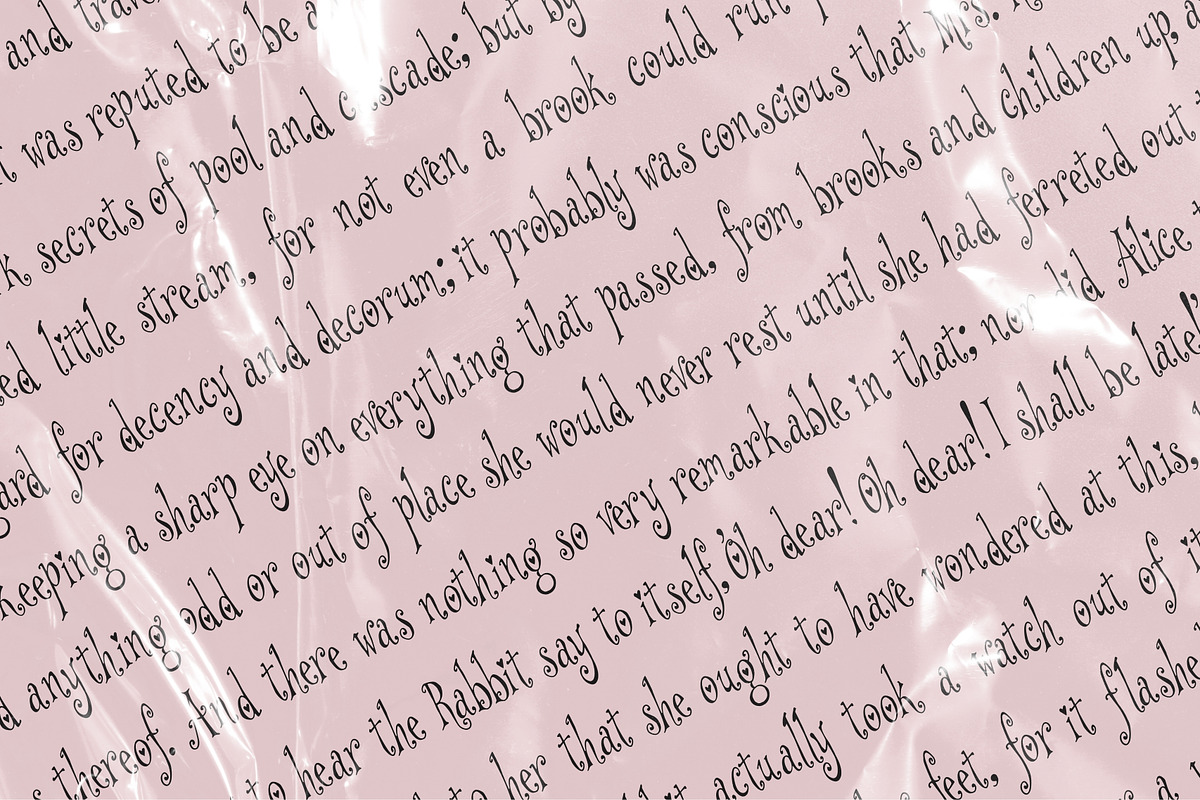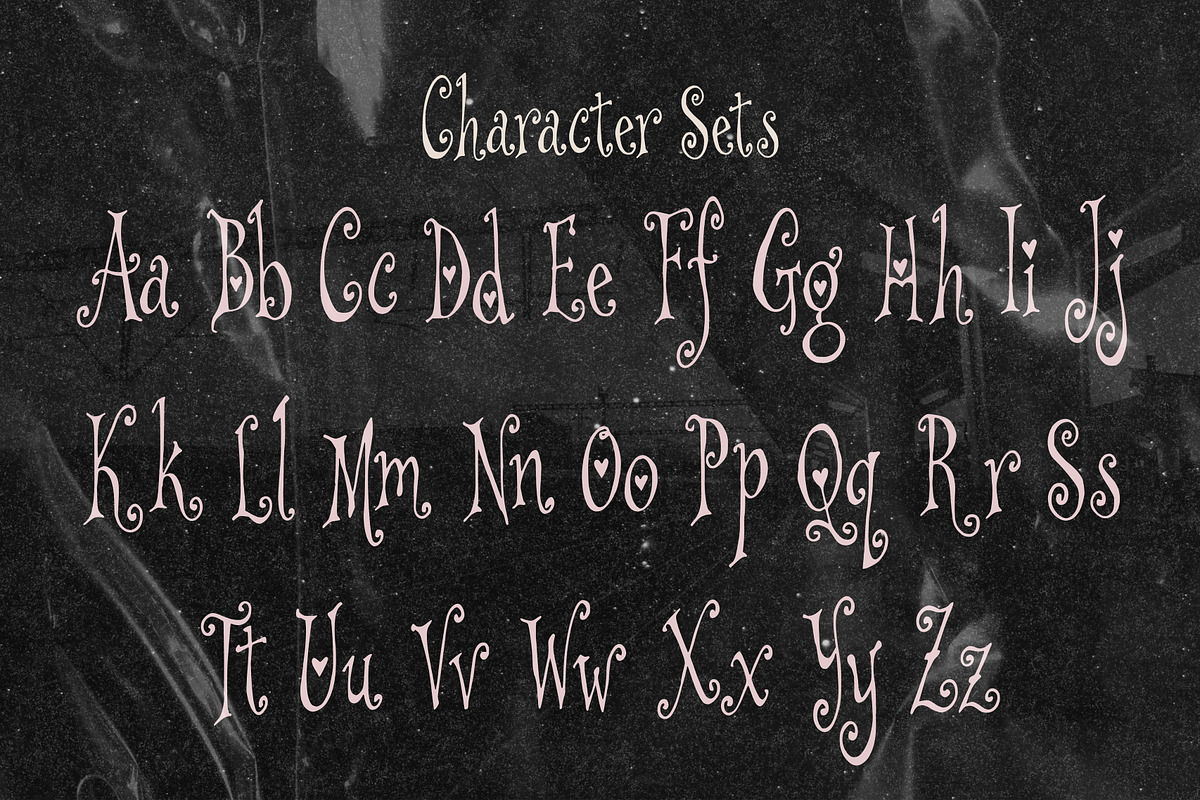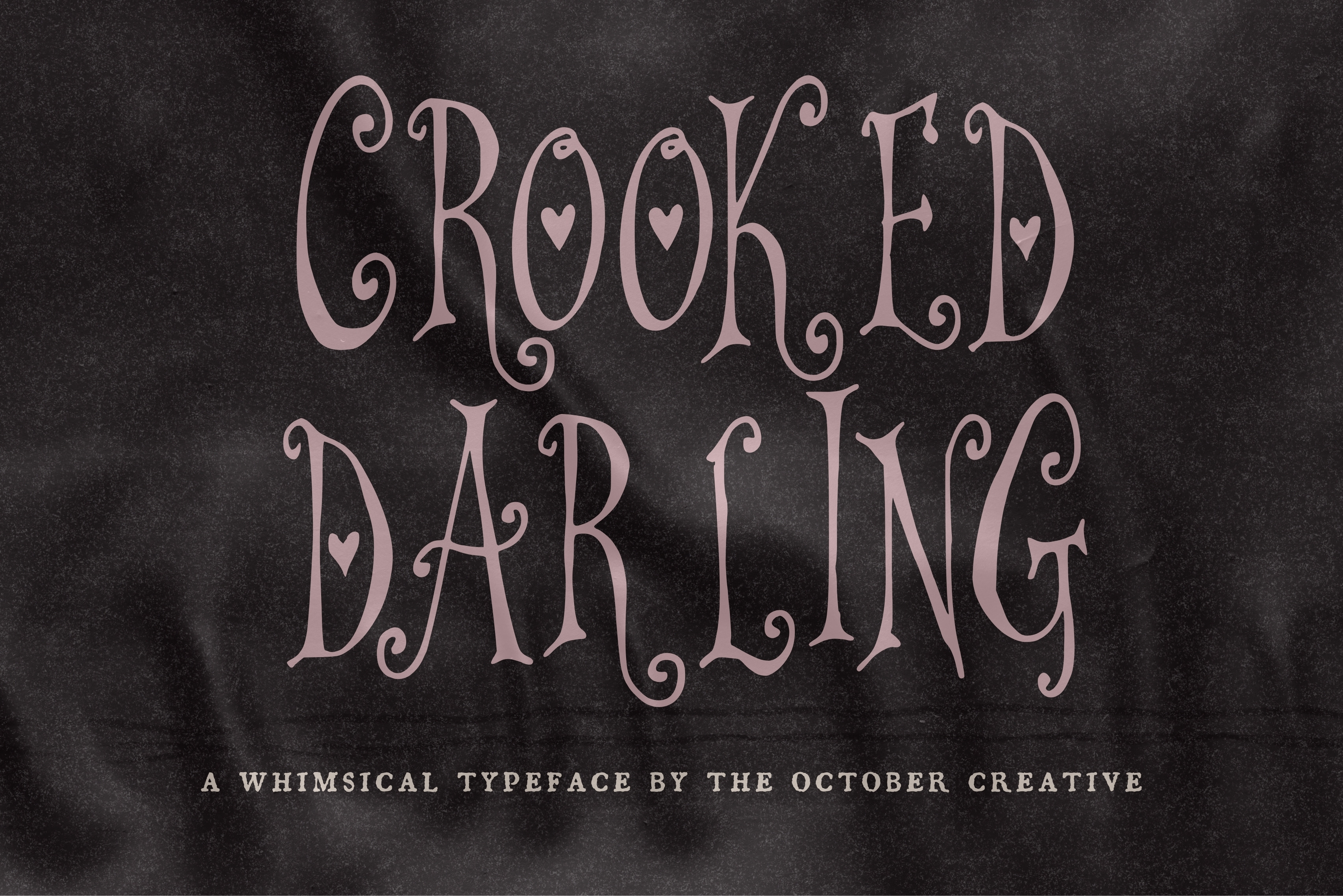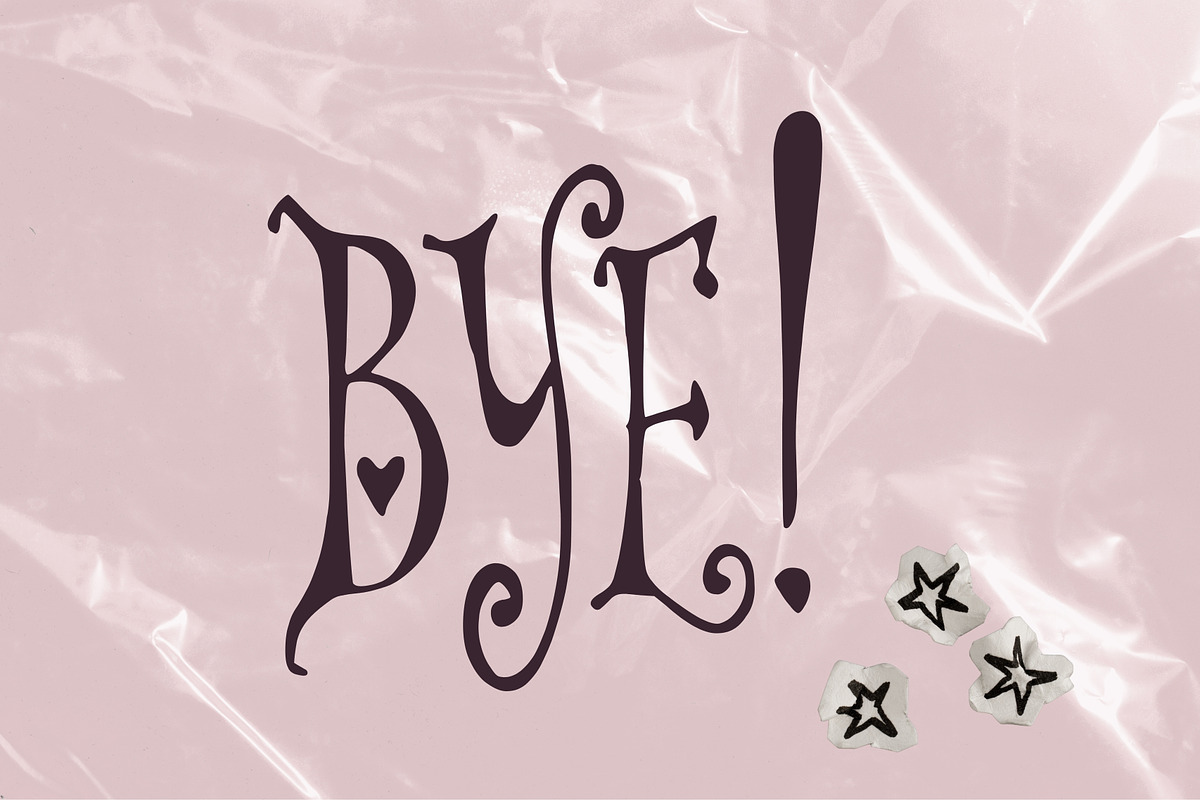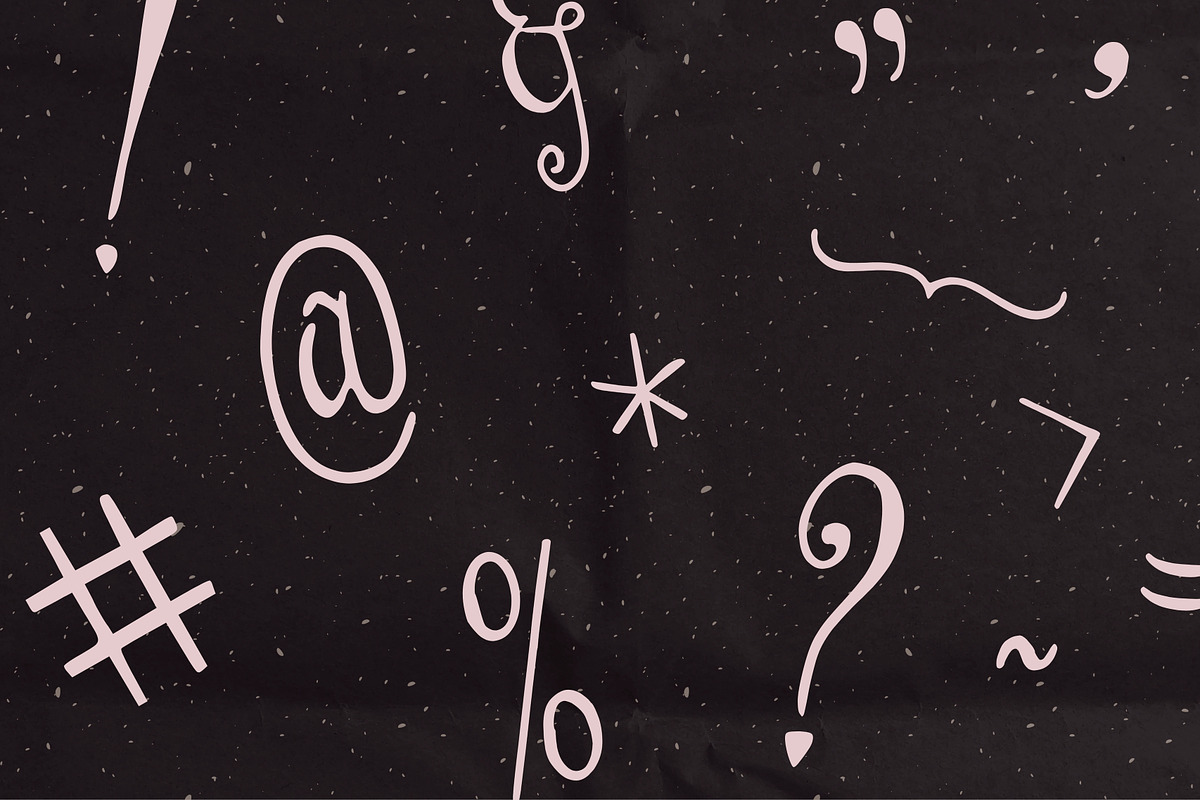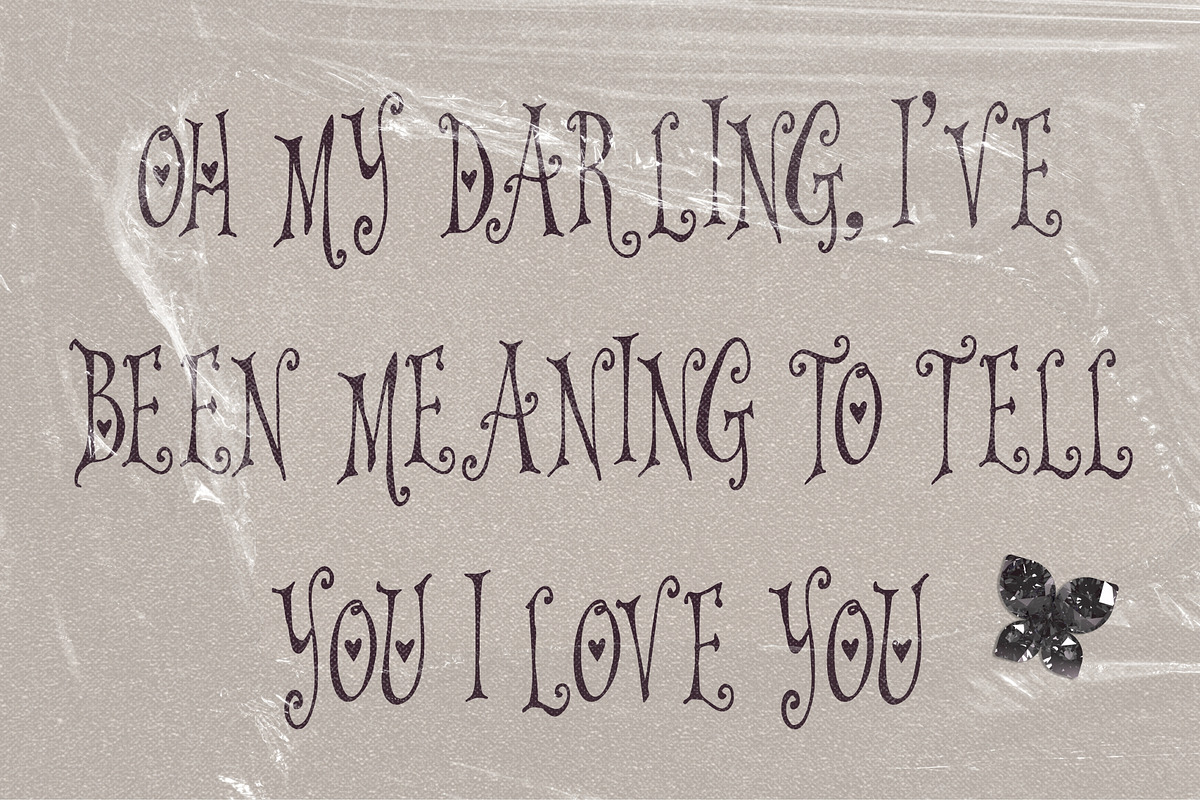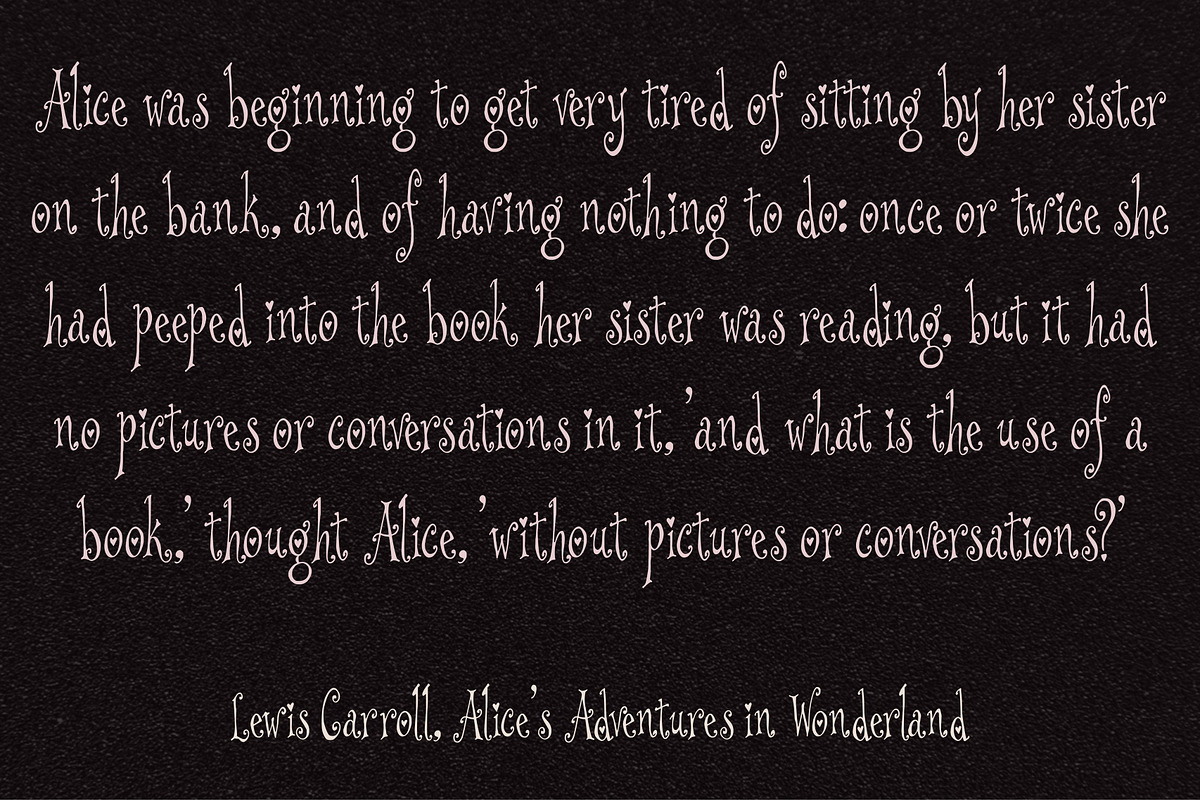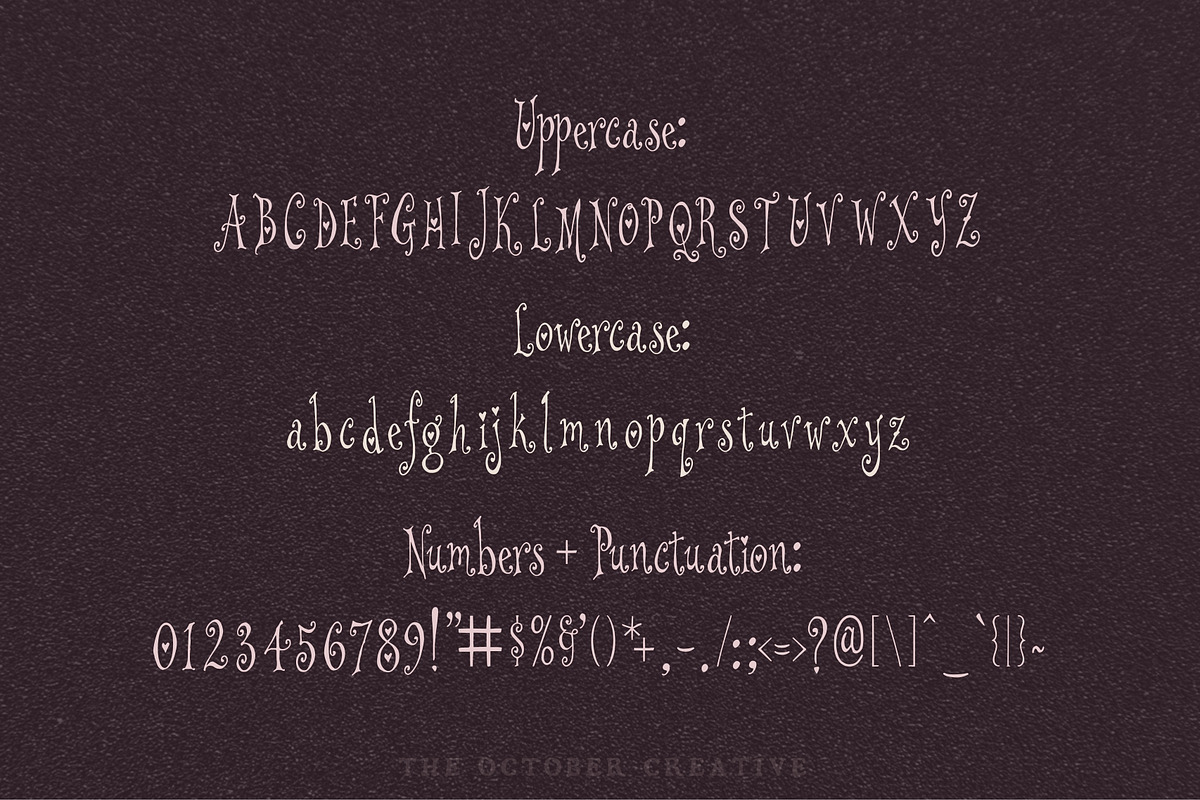
Crooked Darling Heart Display Font
Crooked Darling is a heart display font where little hearts sit in place of the dots on the i and the j and inside the bowls of the o and the d. It fits love notes, valentine cards, coquette stickers, and gift tags.
CHARACTER SET
Uppercase A to Z, lowercase a to z, numerals 0 to 9, and every standard keyboard punctuation mark and symbol: ! " # $ % & ' ( ) * + , - . / : ; < = > ? @ [ \ ] ^ _ ` { | } \~
Curly quotes and apostrophes (‘ ’ “ ”), en and em dashes, an ellipsis, and a bullet.
Accented letters: À Á Â Ã Ä Å Ç È É Ê Ë Ì Í Î Ï Ñ Ò Ó Ô Õ Ö Ù Ú Û Ü and their lowercase forms.
LANGUAGES SUPPORTED
English, plus the accented vowels, Ñ, and Ç used in names and everyday words in Spanish, French, Italian, Portuguese, German, and Dutch. Not included: ß, Æ, Ø, Œ, and the upside-down ¿ and ¡.
SPECIAL CHARACTERS